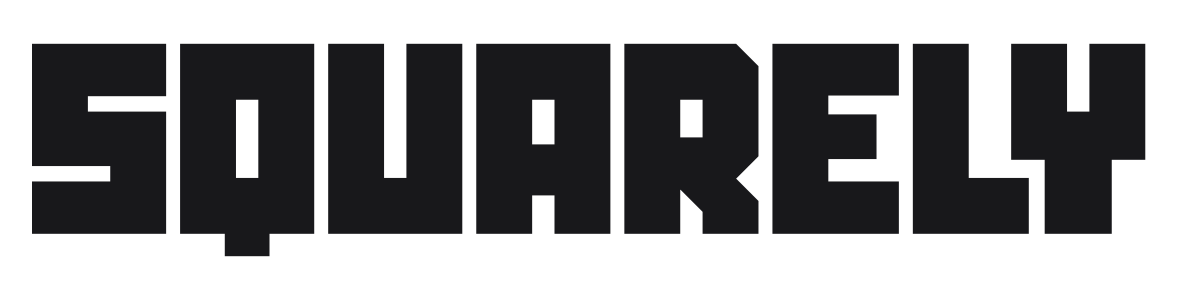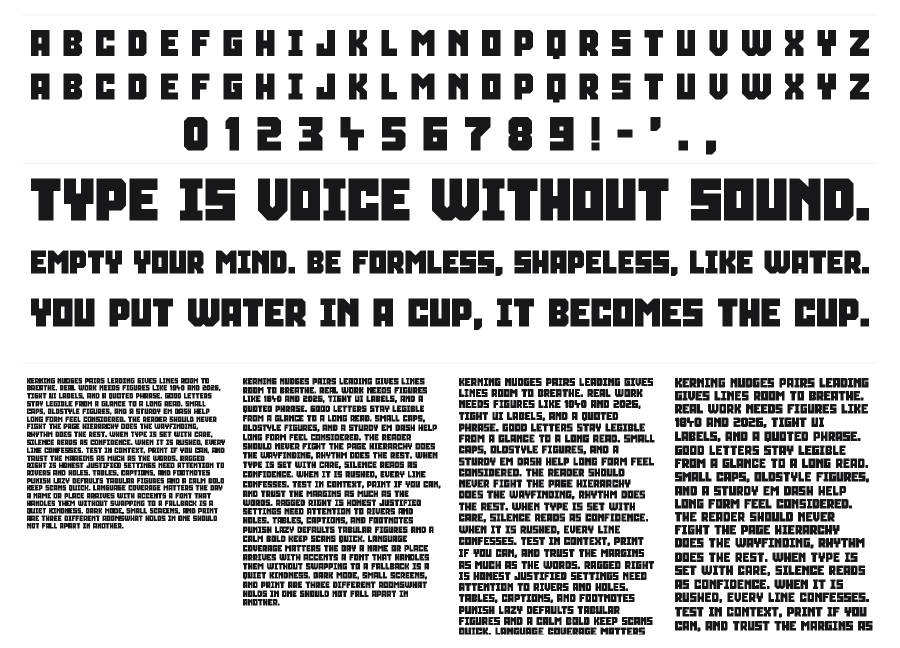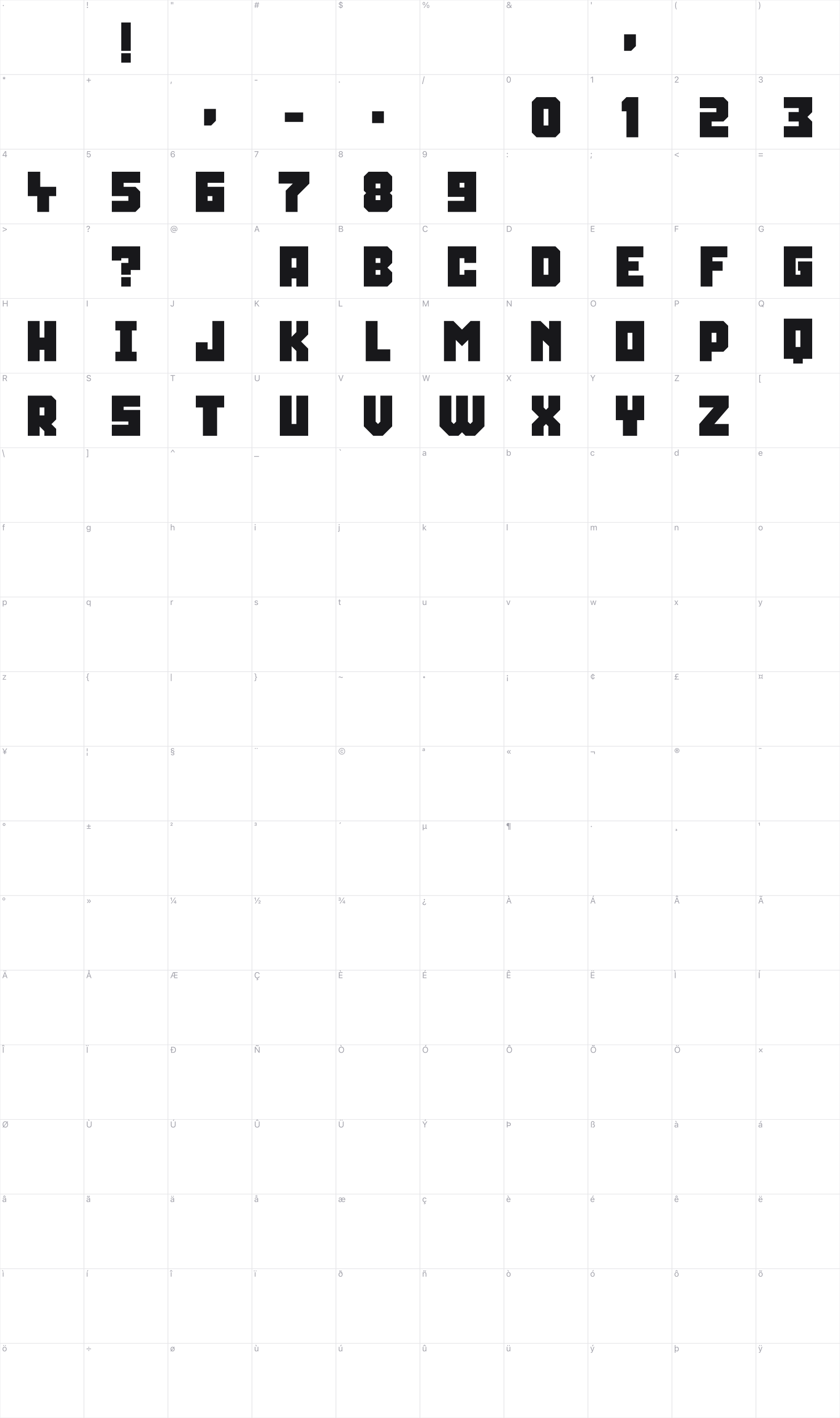
Squarely
Squarely is a heavy square sans-serif built entirely from right angles and thick uniform strokes. The clipped diagonal corners give it a slightly pixelated, stencil-like edge that pushes it firmly into techno and industrial territory. It works best large, where the geometry and weight read as raw graphic power.